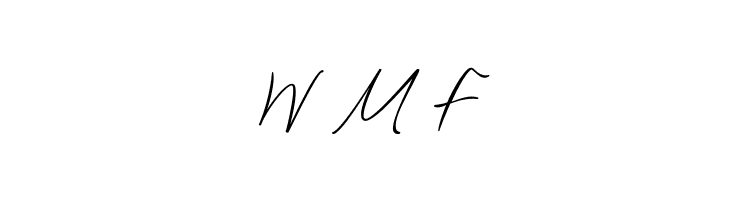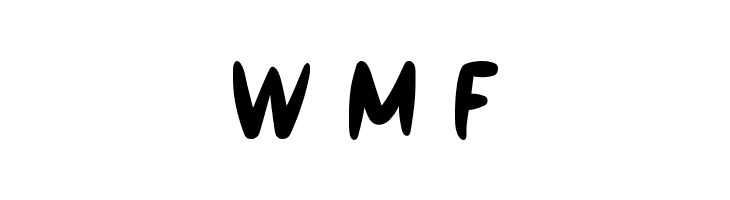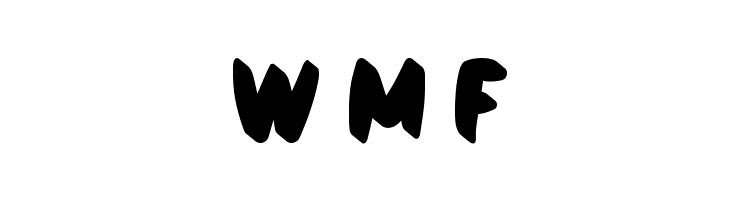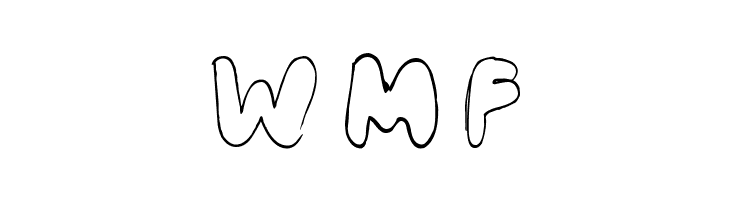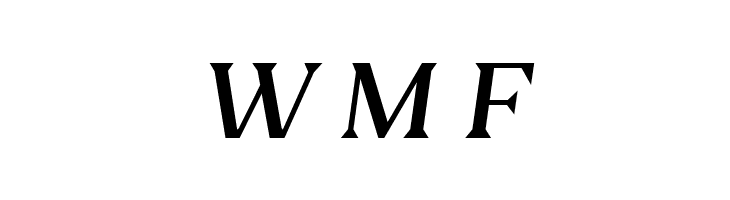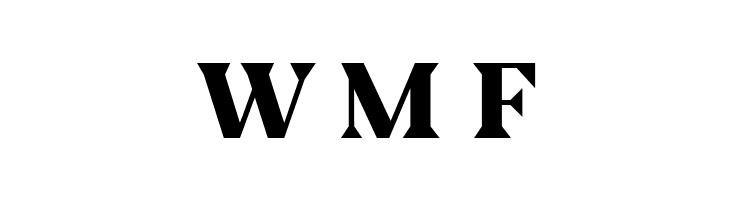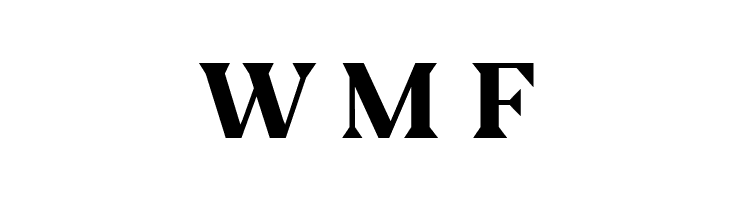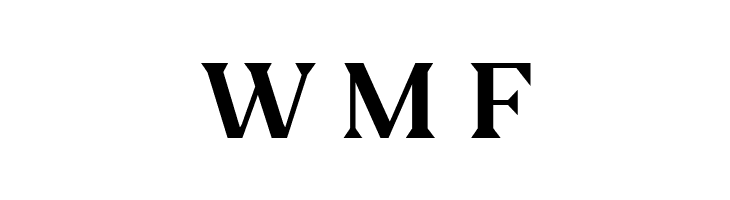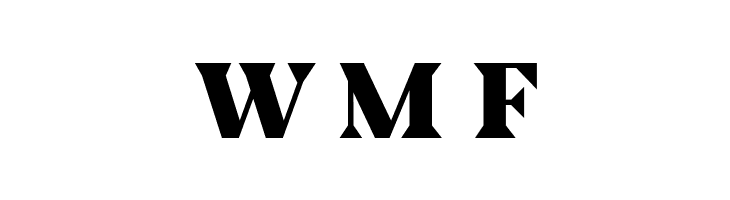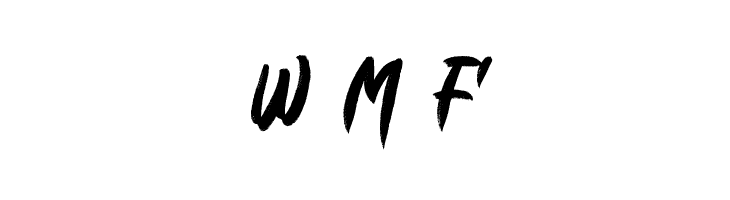
A bold, three-dimensional font with intricate detailing and a vintage flair.
A bold, high-contrast font with dramatic, theatrical styling.
A playful, hand-drawn font with bold, rounded letters and a whimsical style.
A bold, modern font with a geometric and condensed style.
A bold, geometric font with a futuristic and industrial design.
A fluid, handwritten-style font with an elegant and personal touch.
A sophisticated, elegant handwritten font with fluid cursive letterforms.
A unique set of hand sign representations for communication.
A bold, serif font with strong, authoritative strokes and a modern yet classic appeal.
A bold, italic serif font with dynamic and elegant characteristics.
A bold, modern serif font with strong, angular serifs and a classic elegance.
A bold, italicized font with strong, confident strokes and a modern elegance.
A bold serif font with high contrast and strong, elegant serifs.
A bold, italicized font with high contrast and dynamic style.
A classic serif font with a modern twist, offering elegance and sophistication.
An elegant serif italic font with medium contrast and balanced proportions.
A bold, elegant serif font with high contrast and sharp serifs.
Elegant serif font with italic style, perfect for formal and creative uses.
A thin, elegant serif font with high contrast and classic styling.
A sleek, thin, italicized font with a modern and elegant style.
A bold, geometric font with a modern and impactful design.
A bold, expressive handwritten font with dynamic strokes.
A bold, dynamic script font with brush-like strokes and a lively appearance.
A bold, dynamic script font with a rough, hand-drawn style.
A bold, textured, and dynamic font with a brush-like appearance.
A bold, angular font with a futuristic and geometric design.
A bold Blackletter font with angular strokes and intricate detailing.
A delicate, handwritten script font with smooth, flowing lines.
A bold, hand-drawn font with a playful and expressive style.
A playful, hand-drawn bubble font with rounded edges and a whimsical style.
Bold, shadowed font with a playful and artistic style.
A bold, hand-drawn font with energetic, brush-like strokes.